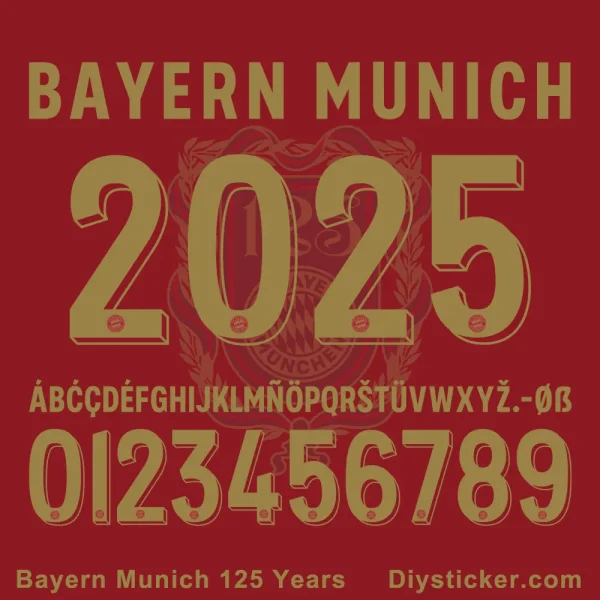
Bayern Munich 125 Years Font Download
Bayern Munich 125 Years Font Download.
Celebrate the 125th anniversary of Bayern Munich! Download this exclusive commemorative font to relive the club’s historic milestone. This font is inspired by the Bayern Munich 125th anniversary celebration and is suitable for various design projects, including jersey customization, poster creation, social media content, and more. Download now and show your support for this legendary club!